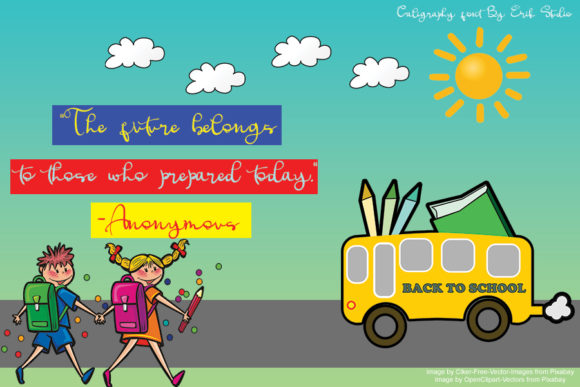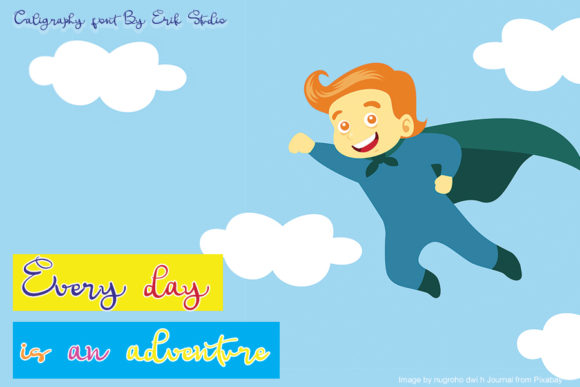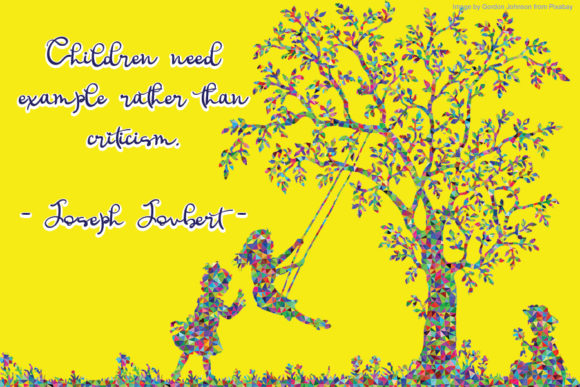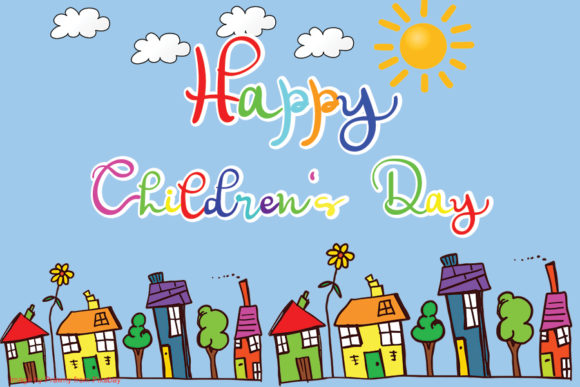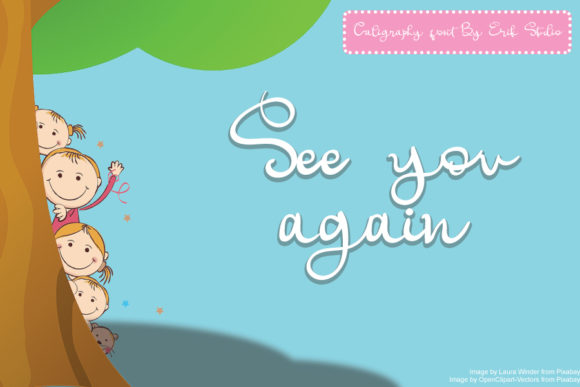
Introducing Arsakha & Keenan: The Cute Handwritten Font for Crafty Designs
Are you a designer or crafter looking for a unique and versatile font to elevate your creative projects? Look no further than Arsakha & Keenan, a charming handwritten font that combines classic calligraphic influences with a modern twist. In this article, we’ll dive into the world of Arsakha & Keenan, exploring its features, benefits, and uses, as well as providing tips and inspiration for incorporating this beautiful font into your designs.
The Story Behind Arsakha & Keenan
Arsakha & Keenan is a carefully handcrafted font, designed to become a true favorite among designers and crafters. Its creators aimed to create a font that would maintain the elegance and sophistication of traditional calligraphy while feeling fresh and contemporary. The result is a font that is both timeless and trendy, perfect for a wide range of creative projects.
Key Features of Arsakha & Keenan
So, what makes Arsakha & Keenan so special? Here are some of its key features:
- Handwritten charm: Arsakha & Keenan boasts a genuine handwritten feel, making it perfect for designs that require a personal touch.
- Calligraphic influences: The font’s classic calligraphic roots add a touch of sophistication and elegance to any design.
- Contemporary and fresh: Arsakha & Keenan’s modern twist ensures it feels current and on-trend, making it ideal for a wide range of creative projects.
- Versatile: This font is suitable for various design applications, from letterheads and titles to stationery and more.
Uses for Arsakha & Keenan
Arsakha & Keenan’s versatility makes it an excellent choice for various design projects, including:
- Letterheads and titles: Add a touch of elegance and sophistication to your letterheads, titles, and headings.
- Stationery and invitations: Create beautiful, one-of-a-kind stationery and invitations that will make your recipients feel special.
- Branding and packaging: Use Arsakha & Keenan to create eye-catching branding and packaging that will help your business stand out.
- Digital and print media: This font is suitable for both digital and print media, making it perfect for designers who work across multiple platforms.
Tips for Using Arsakha & Keenan
To get the most out of Arsakha & Keenan, here are some tips to keep in mind:
- Experiment with font sizes: Arsakha & Keenan looks great in various font sizes, from large headings to smaller body text.
- Play with colors: This font pairs well with a range of colors, so don’t be afraid to experiment and find the perfect combination for your design.
- Mix and match: Combine Arsakha & Keenan with other fonts to create a unique and visually appealing design.
Inspiration and Examples
Still not sure how to use Arsakha & Keenan in your designs? Here are some inspiring examples to get you started:
- Wedding stationery: Use Arsakha & Keenan to create beautiful wedding invitations, save-the-dates, and thank-you cards.
- Branding and logos: This font is perfect for creating elegant and sophisticated branding and logos for businesses, such as boutiques, restaurants, and more.
- Digital media: Arsakha & Keenan can be used in digital media, such as social media graphics, blog posts, and email newsletters.
Arsakha & Keenan is a beautiful, versatile handwritten font that is sure to become a favorite among designers and crafters. Its unique blend of classic calligraphic influences and modern freshness makes it perfect for a wide range of creative projects. Whether you’re designing letterheads, titles, stationery, or branding, Arsakha & Keenan is an excellent choice. So why not give it a try and see how this charming font can elevate your designs?